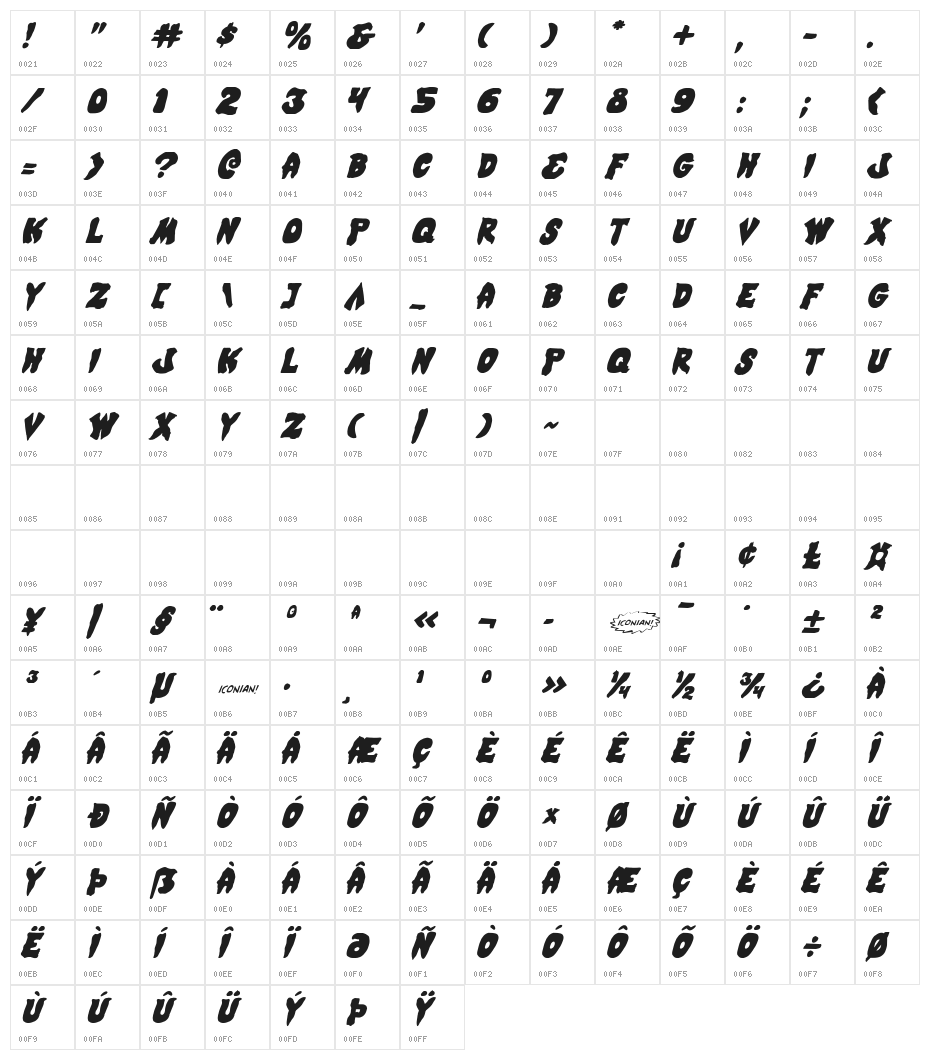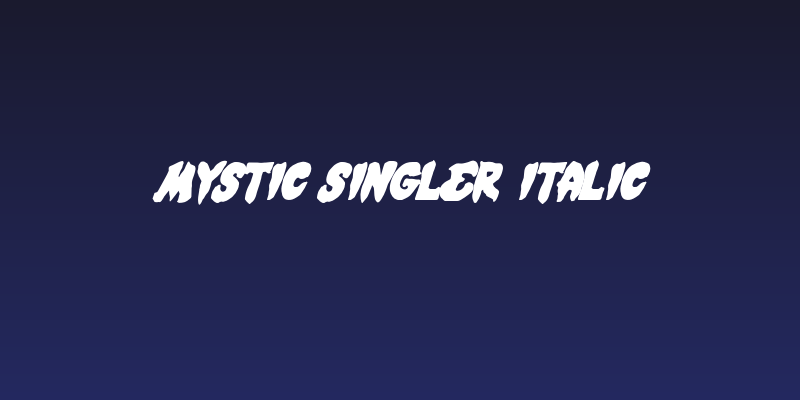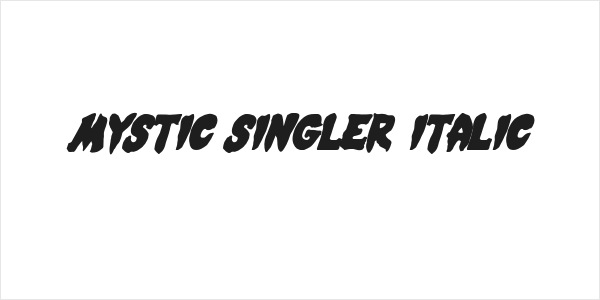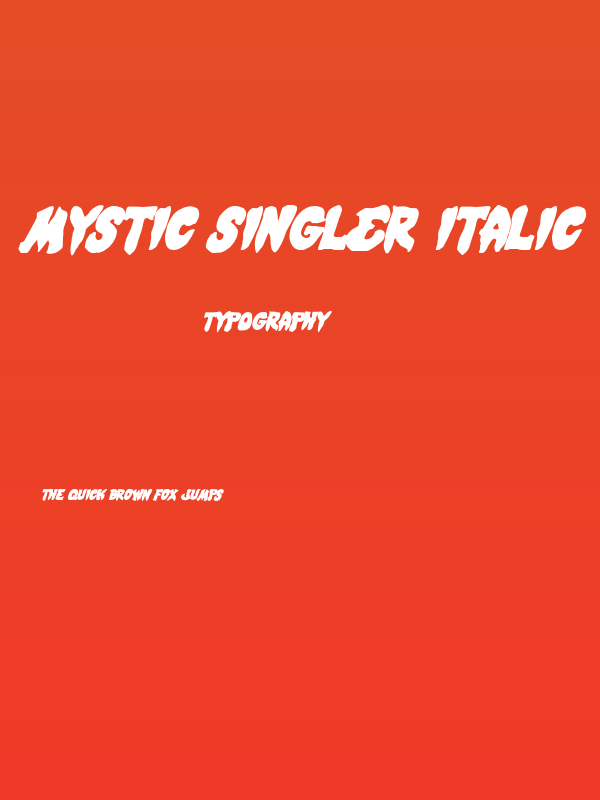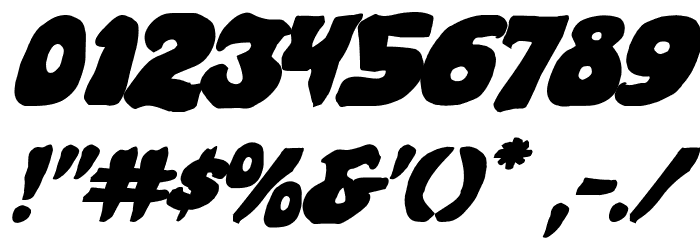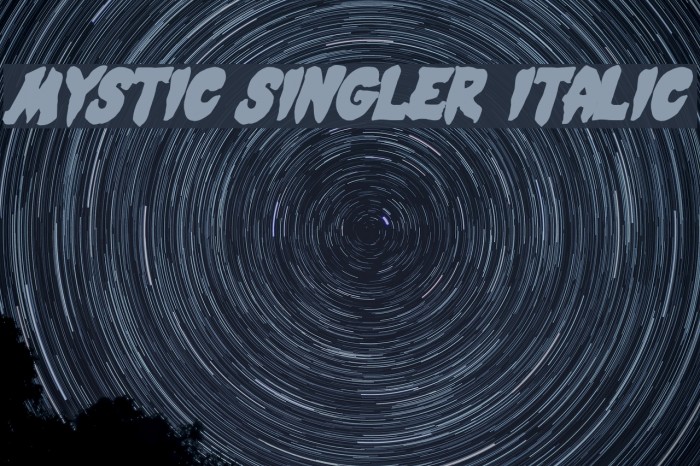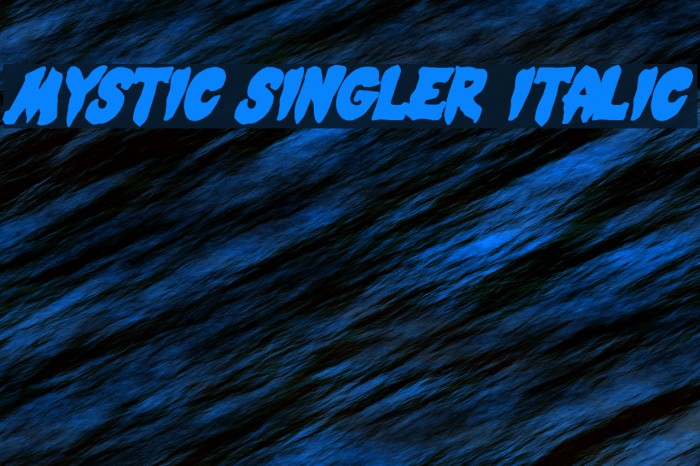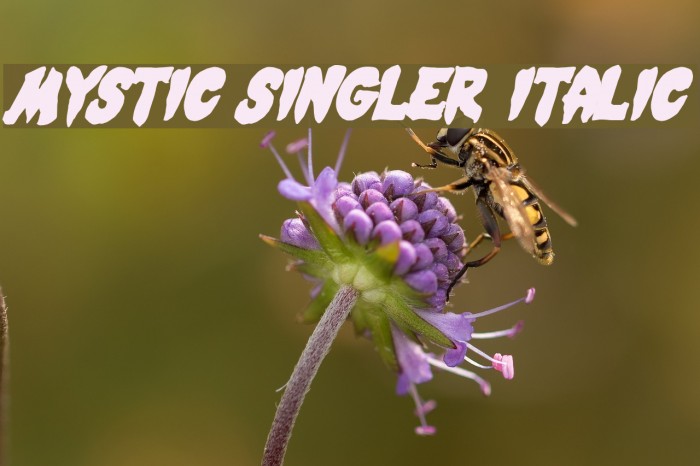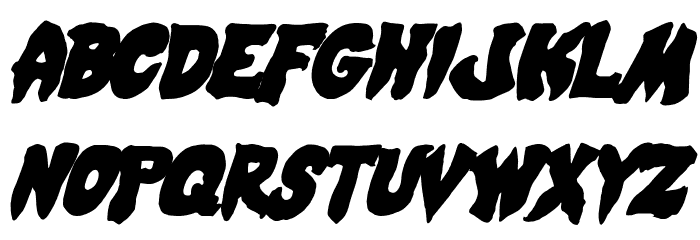
Mystic Singler Italic Font
Mystic Singler Italic Description
This font exhibits a bold and dynamic style with a strong presence. The characters are heavily stylized with thick strokes and a slightly italicized slant, giving them a sense of movement and energy. The uppercase and lowercase letters maintain a consistent weight, contributing to a cohesive look. The numbers and special characters are equally bold, ensuring they stand out prominently. The overall design is reminiscent of graffiti or street art, making it ideal for projects that require a bold and expressive typeface.
| Overall Style | Modern, Decorative |
| Proposed Projects | Perfect for street art-inspired designs, posters, album covers, and branding that requires a bold statement. |